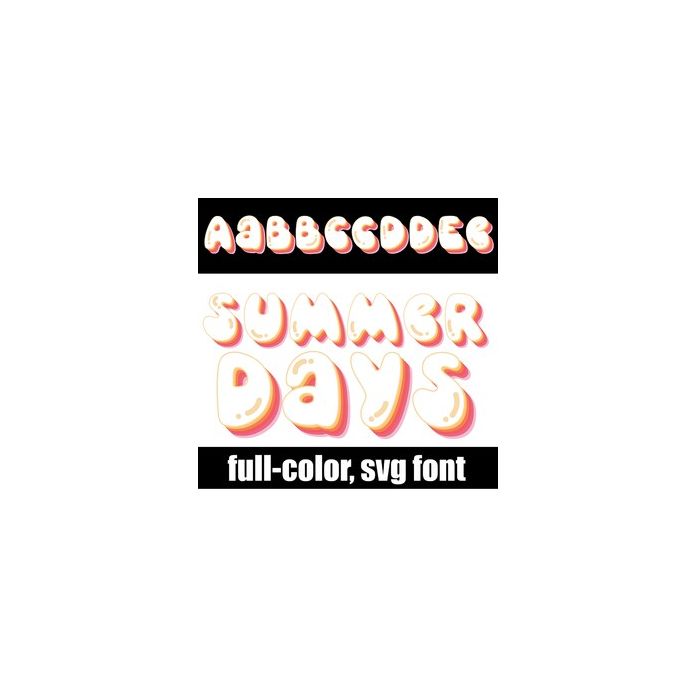
This full-color font features a retro, hippy style font in a rainbow of warm summer colors. This font works best for titles, displays, posters and more. Please note color fonts will show as black in non compatible programs. This font type is compatible with Silhouette Studio.